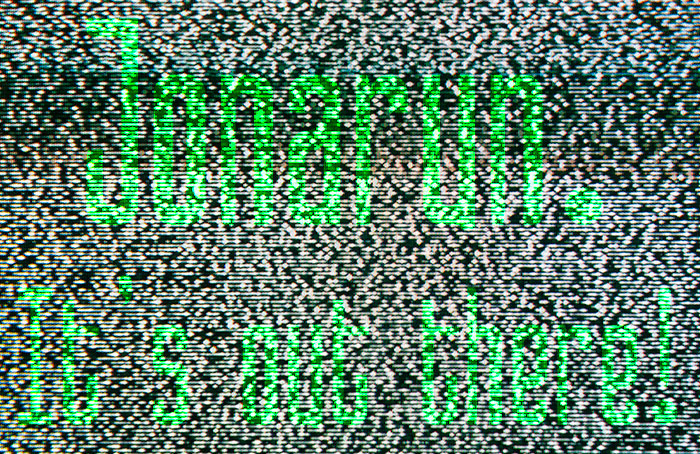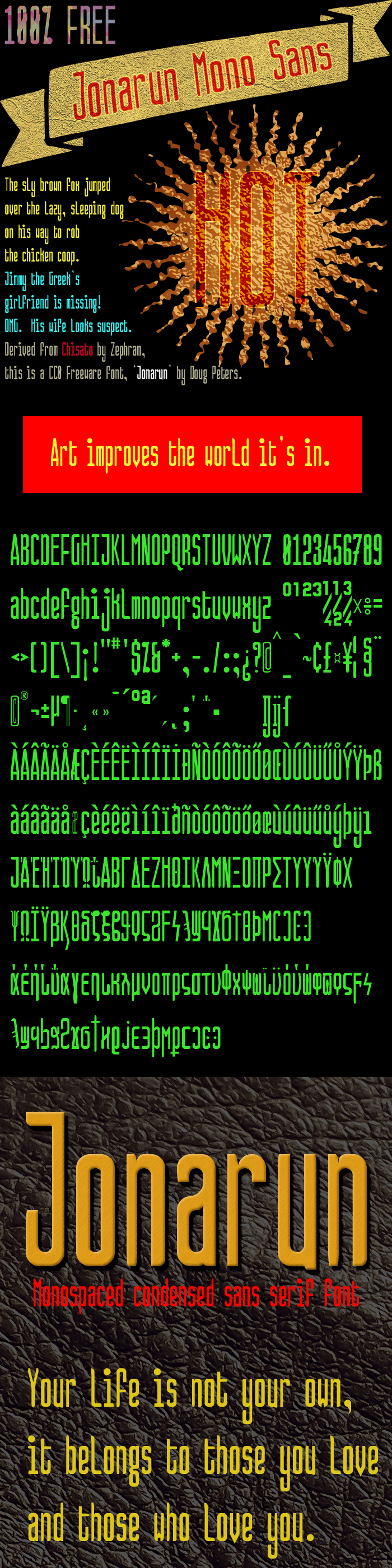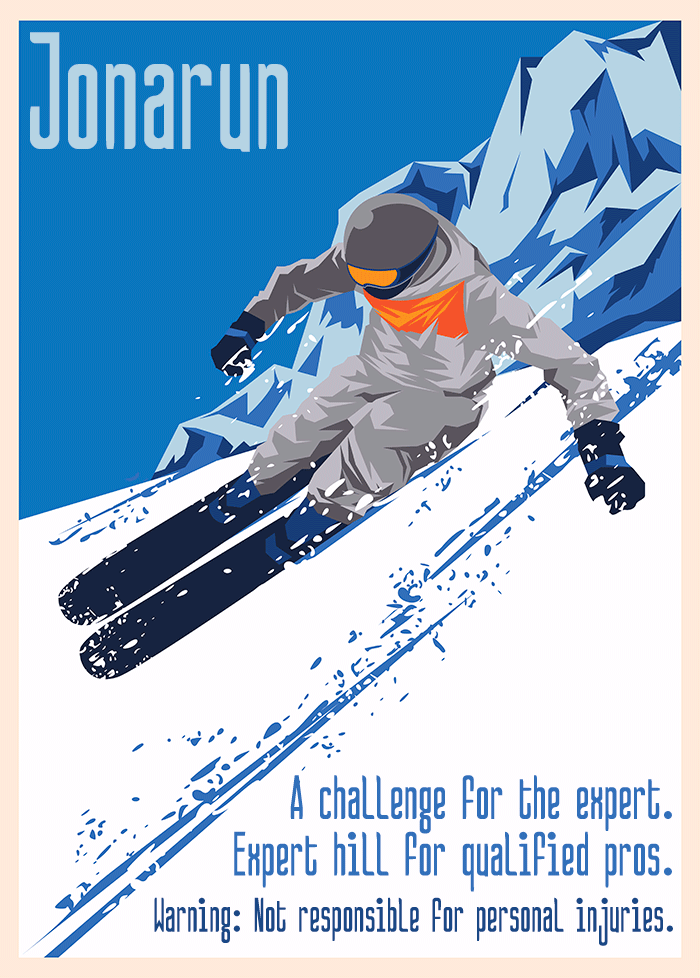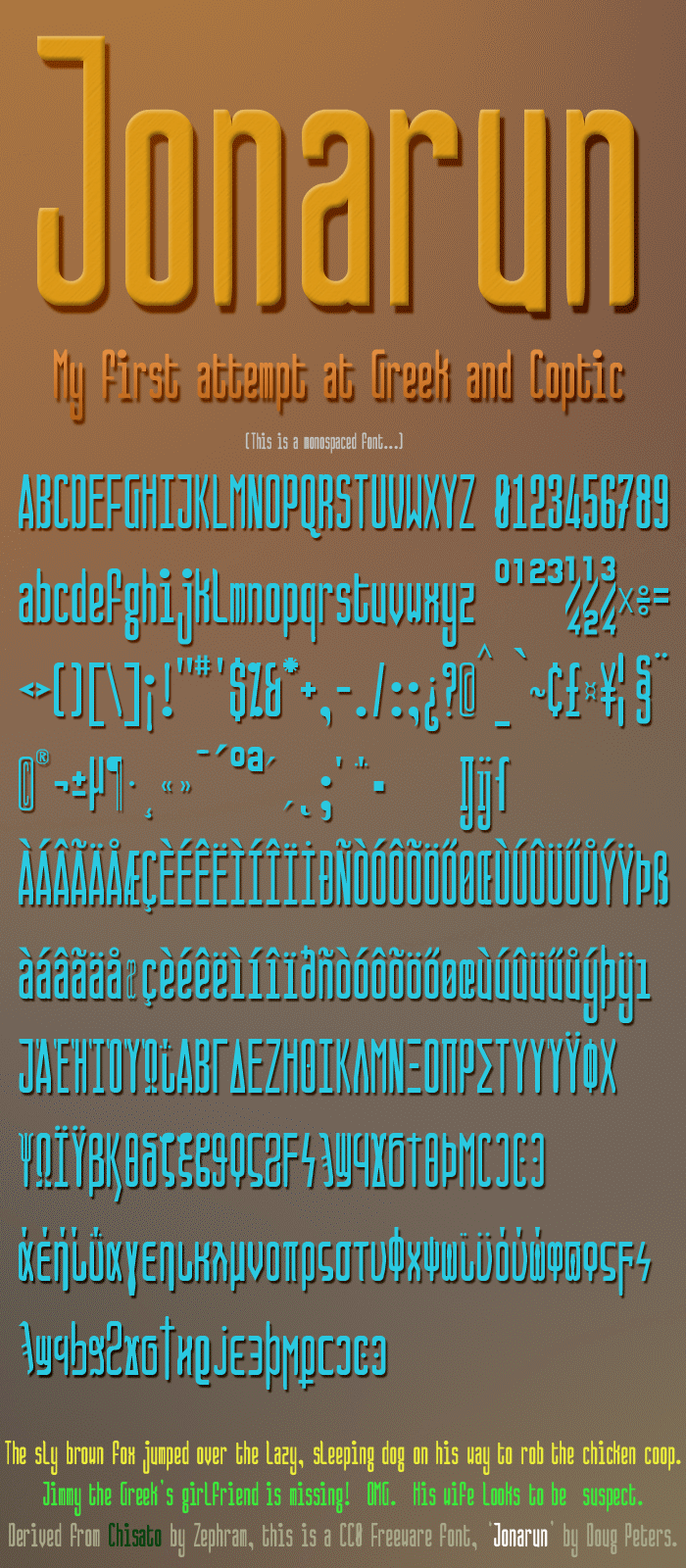
• Derived from Chisato by Zephram.
Although Zephram's work is no longer apparent here, it exists in the underlying compressed letter forms and shapes of most of the characters that inspired me to give it a twist and make it monspaced with tapered ends.
Type: Monospaced Sans.
I guess I would classify this one as: Casual, Condensed.
Weight: Regular.
Greek and Coptic left.  I messed up the l making it pretty.  Trying out big ass periods, commas and colons, I might make the apostrophes big ass, too.  Just too much white space all round the punctutation. Thanks to zephram for Chisato, from which this is based on.
I have to admit, the Greek and Coptic seems to be kicking my ass.  I've never done it before.  Still working on it on April 18th, 2019.
I think this is it.  I think it's finally done (on Friday, April 26th, 2019).  Thanks to @Zephram for the inspiration.  The Fontstruct preview does not do this font justice because I am using tapered ends, and since I built them out of multiple bricks, the preview makes them seem like slabs.  But that is not a big deal.
I spent a lot of time on the Greek and Coptic letterset.  If someone could please check it, that knows it, I would be very grateful.
I'm kind of excited about this one.  Even though it was based on Zephram's work, and it did help, the whole thing was redone.  Not one brick was left untouched (even if I just slid it).
Hmmm... maybe I need to make a better m?  Not completely done, I guess.
OK, corrected the dotless i. Fixed the dot under the !.  Fixed the Euro sign.  Added a Bitcoin sign.  Changed the ends of the English Pound crossbar and added the double crossbar version of it (which probably is for something else altogether).  Checking again...  Corrected the dot above the inverted exclamation mark. Added a couple checkmarks in Dings.  Finally attempted fixing the lowercase m.
There's probably more to do, but I'm intending to publish it as soon as possible.